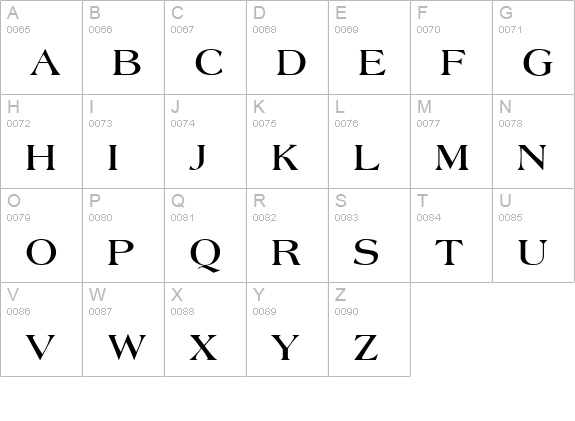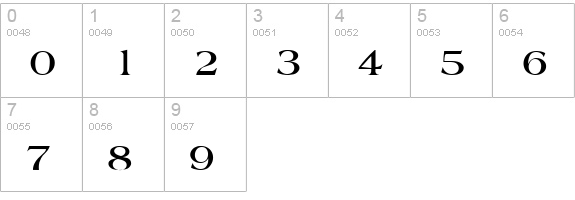
Amphion Bold Font Details
Amphion Bold is a strong, high-contrast variant in the Amphion typeface family \xE2\x80\x94 well suited to headlines, attention-grabbing titles, and strong calls-to-action.
Amphion Bold is a modern and versatile typeface that exudes confidence and sophistication. With its bold strokes and sharp angles, this font makes a bold statement in any design project. Whether you are creating a sleek logo, eye-catching headlines, or striking posters, Amphion Bold is sure to grab attention. What's even better is that this stunning font is available for free download at FontsMarket.com. Yes, you heard it right - you can add this powerful typeface to your collection without spending a dime. Don't miss out on the opportunity to enhance your designs with the impactful Amphion Bold font. Download it today and elevate your creative projects to the next level.